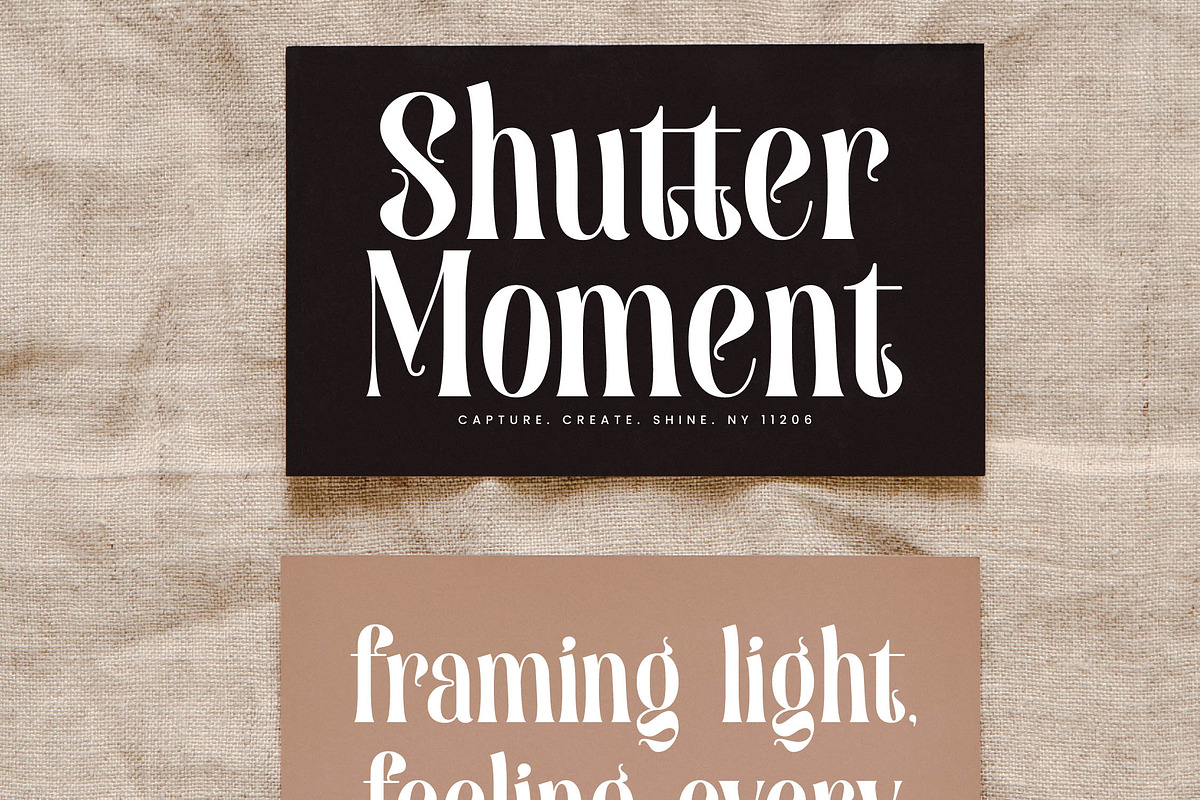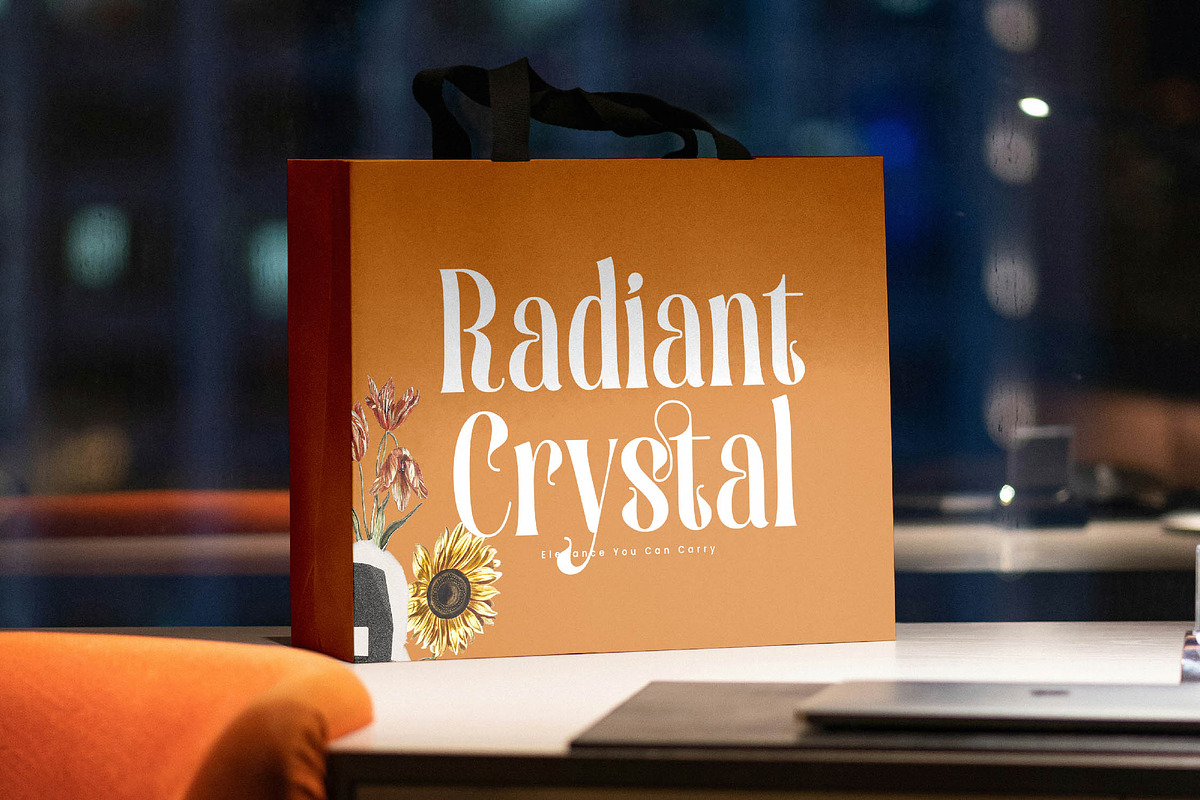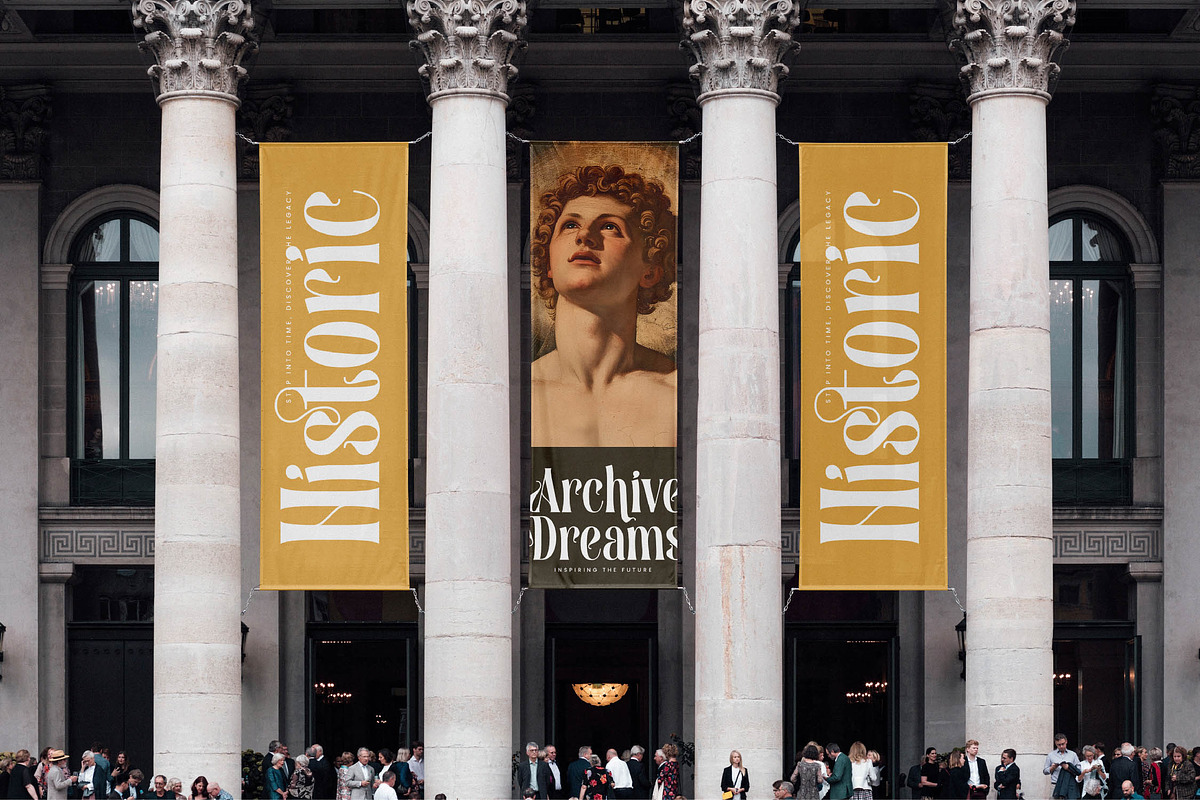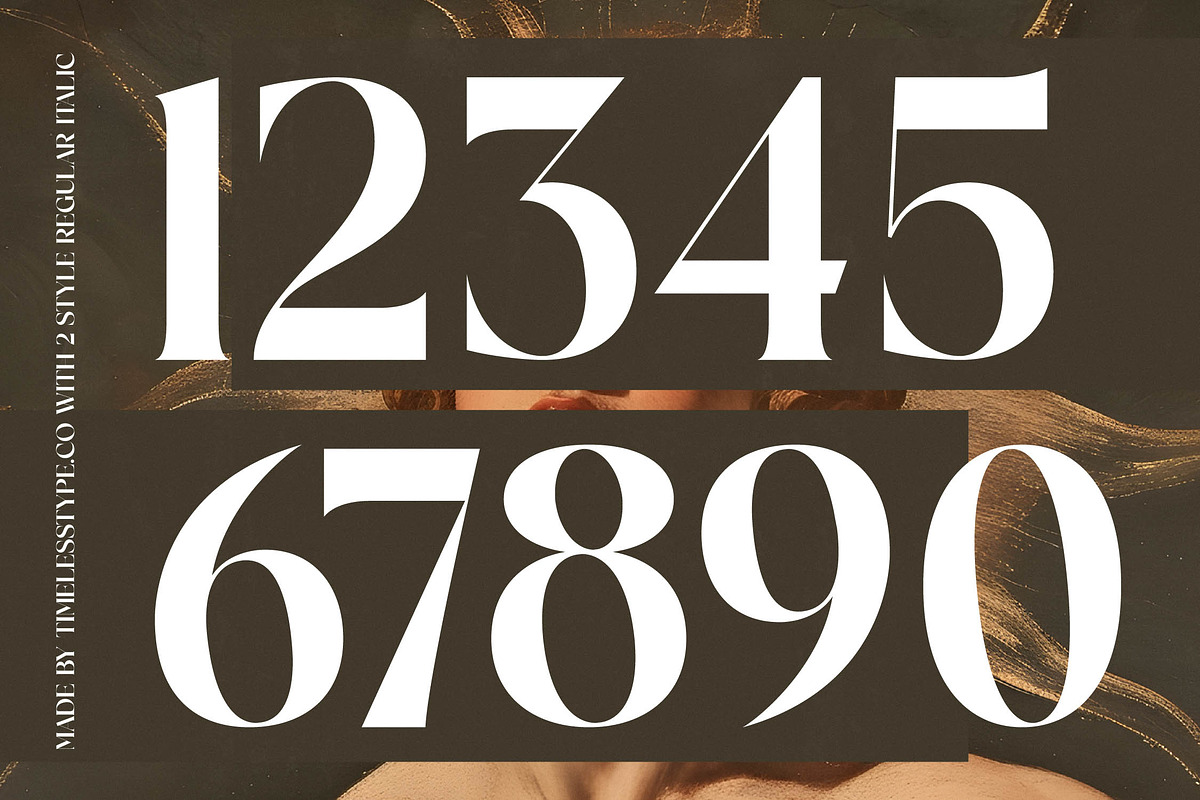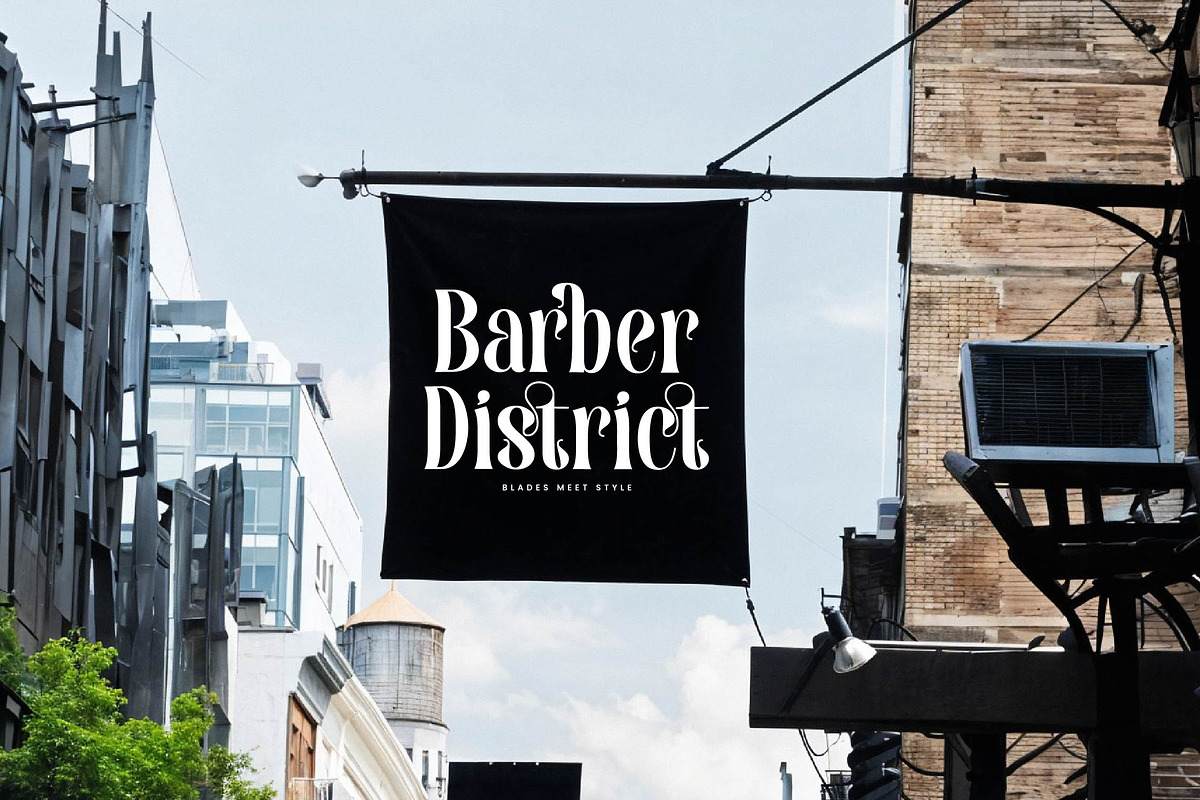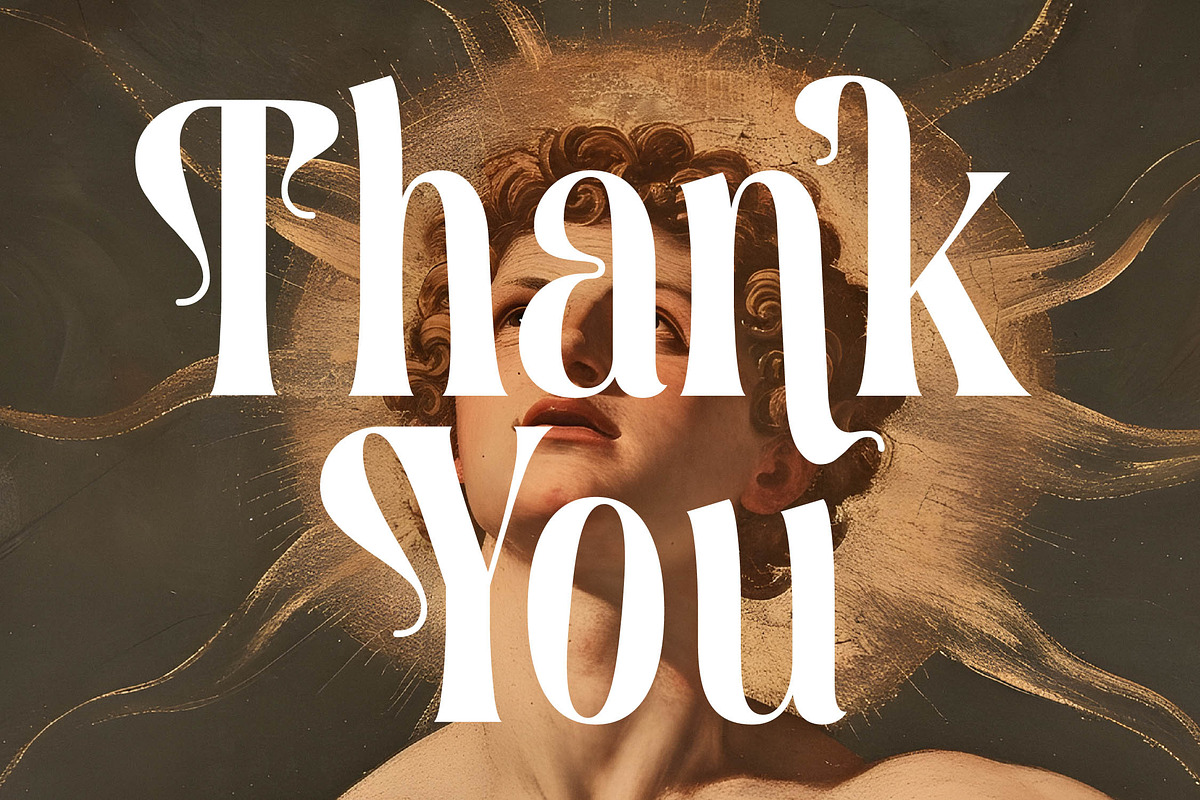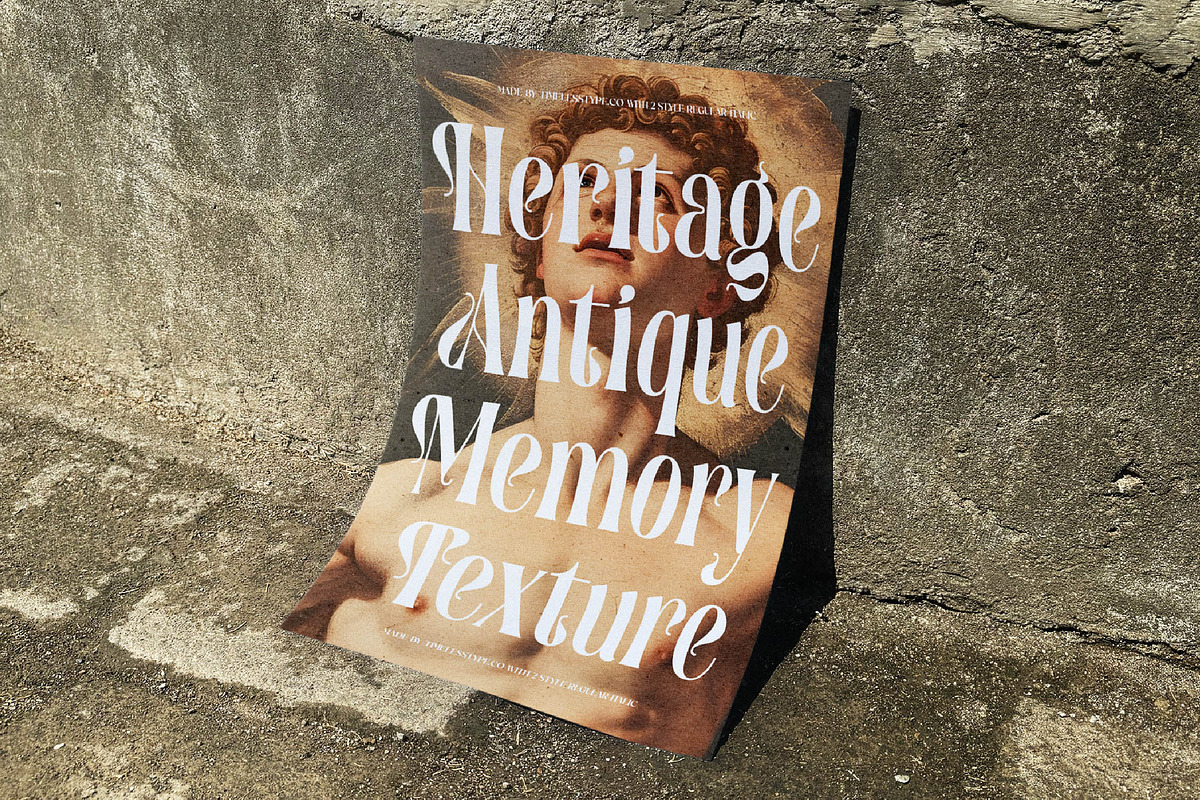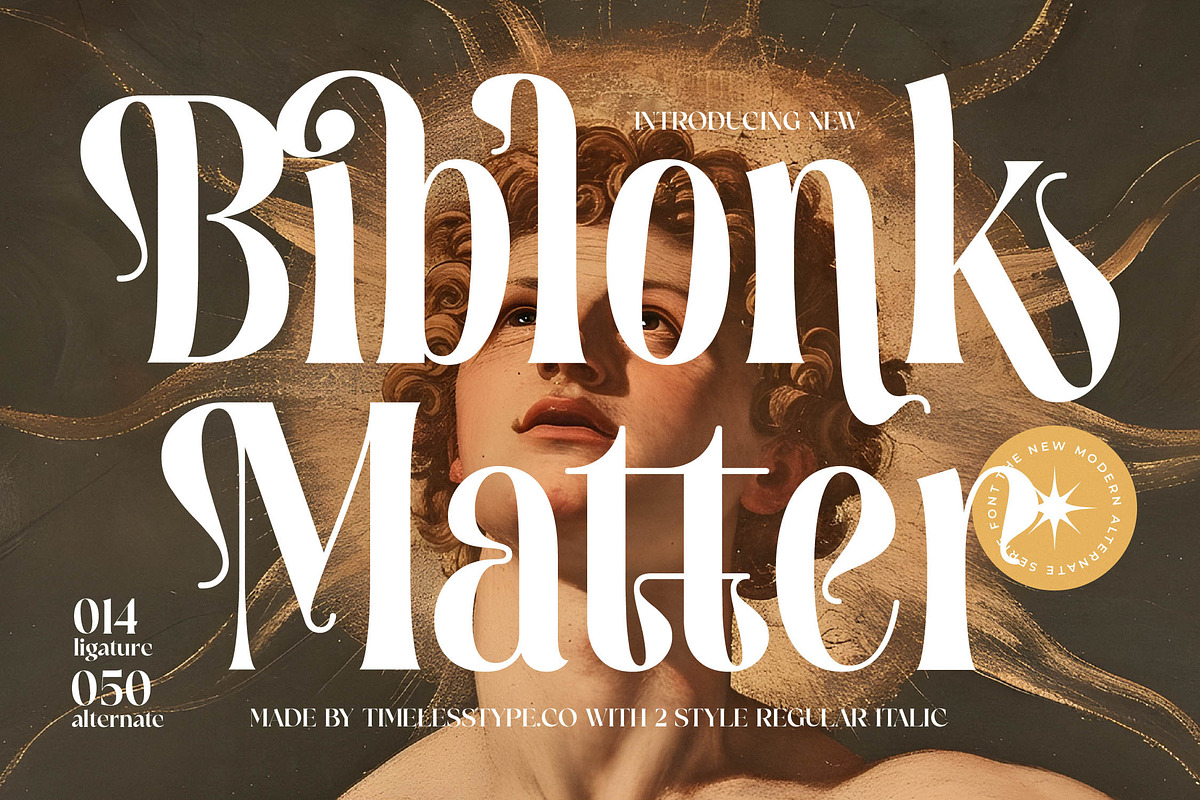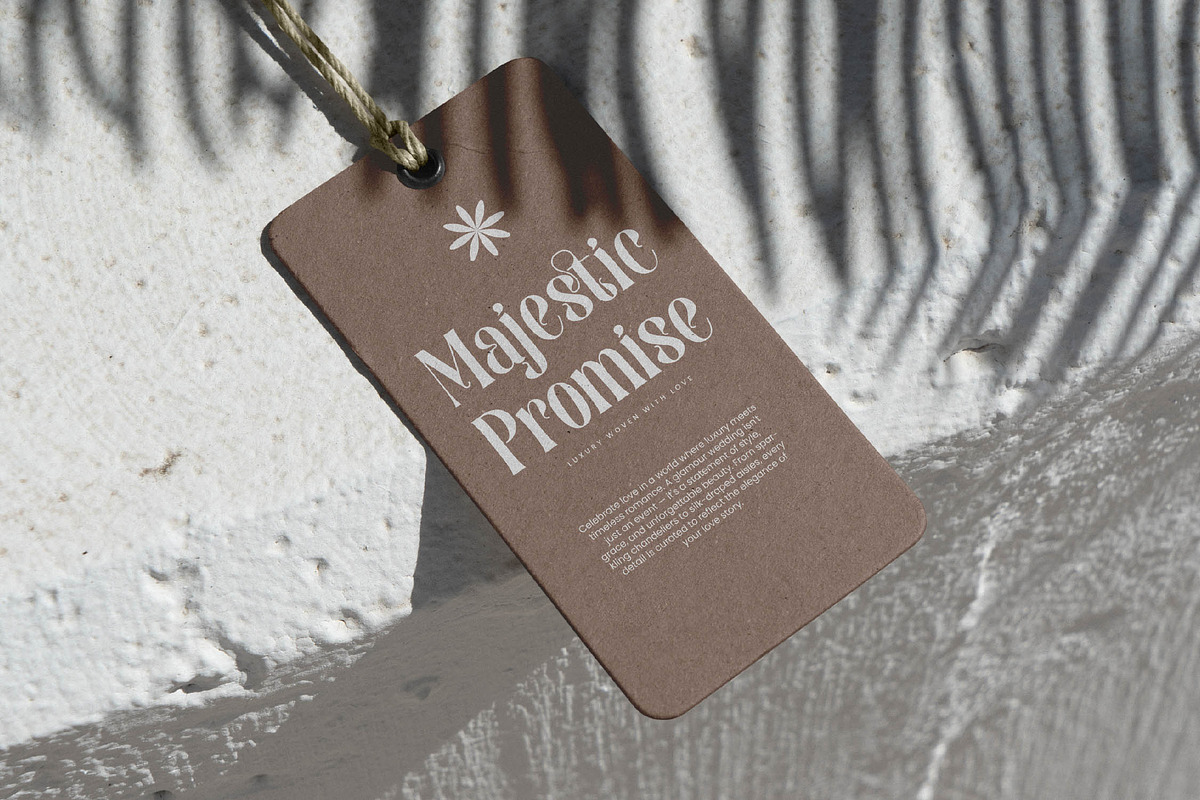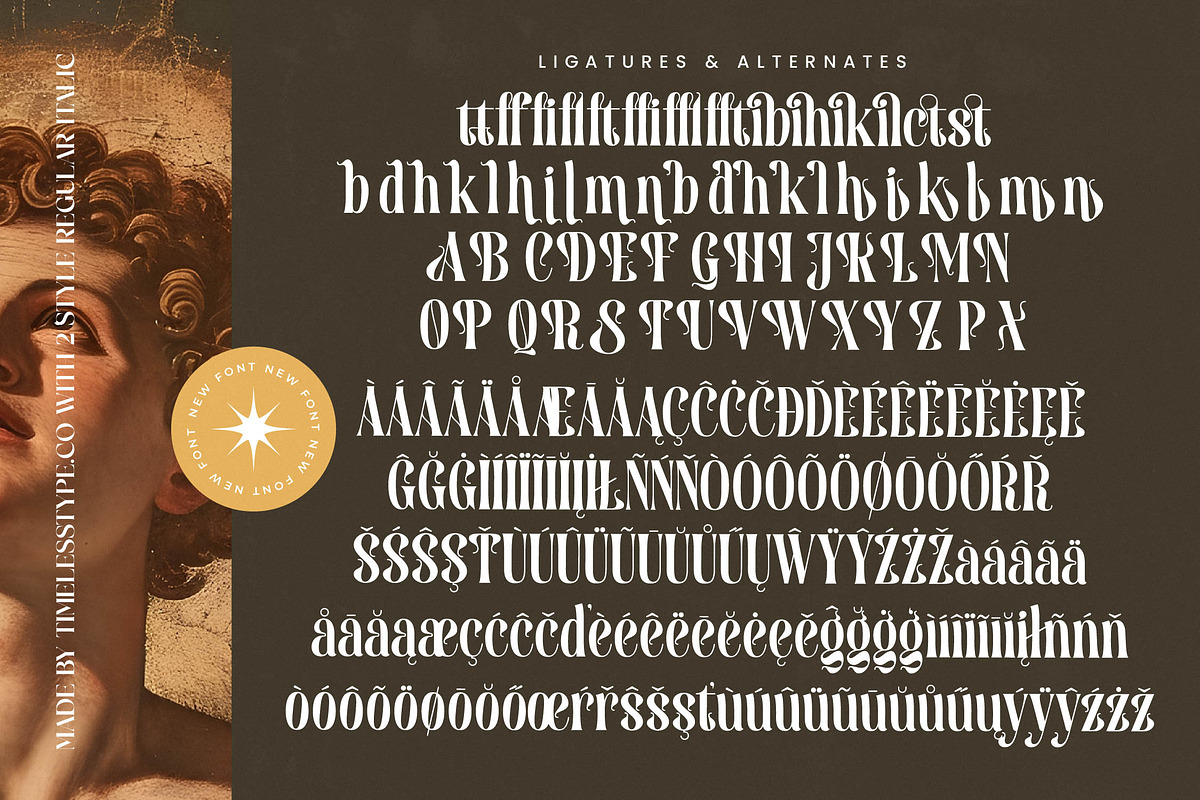
Biblonk Matter Elegant Serif
Biblonk Matter is a masterpiece of fluid elegance, bridging the gap between classical art and contemporary design with effortless grace. It captures a sense of timeless beauty that demands immediate attention while maintaining a sophisticated, high-end allure for any visual composition.
Drawing inspiration from the dramatic curves of Renaissance sculpture and the flowing lines of organic forms, this typeface evokes a sense of poetic movement. It feels like a modern tribute to the masters, blending the weight of history with a fresh, avant-garde spirit that breathes life into static layouts.
This modern serif display is designed for high-impact visual storytelling, offering a luxury typography experience that elevates any project. Its high-contrast serif terminals and unique character shapes provide a powerful editorial font aesthetic, ensuring a lasting branding impact across all platforms.
Perfectly aligned with the current modern serif trend, this typeface meets the demand for editorial display fonts that feel both nostalgic and future-forward. It is the definition of character-driven typography, catering to professional designers who want to break away from sterile minimalism into something more expressive.
From sophisticated logo design and upscale branding to high-fashion editorial layouts, this font is incredibly versatile. It is an ideal choice for premium packaging, romantic wedding stationery, or cutting-edge fashion lookbooks where personality is paramount.
The set is packed with creative potential, including 14 unique ligatures and 50 stylish alternates that allow for custom compositions. It also features full multilingual support with extensive international characters, ensuring your message reaches a global audience with ease.
- Ligature 014 Alternate 050